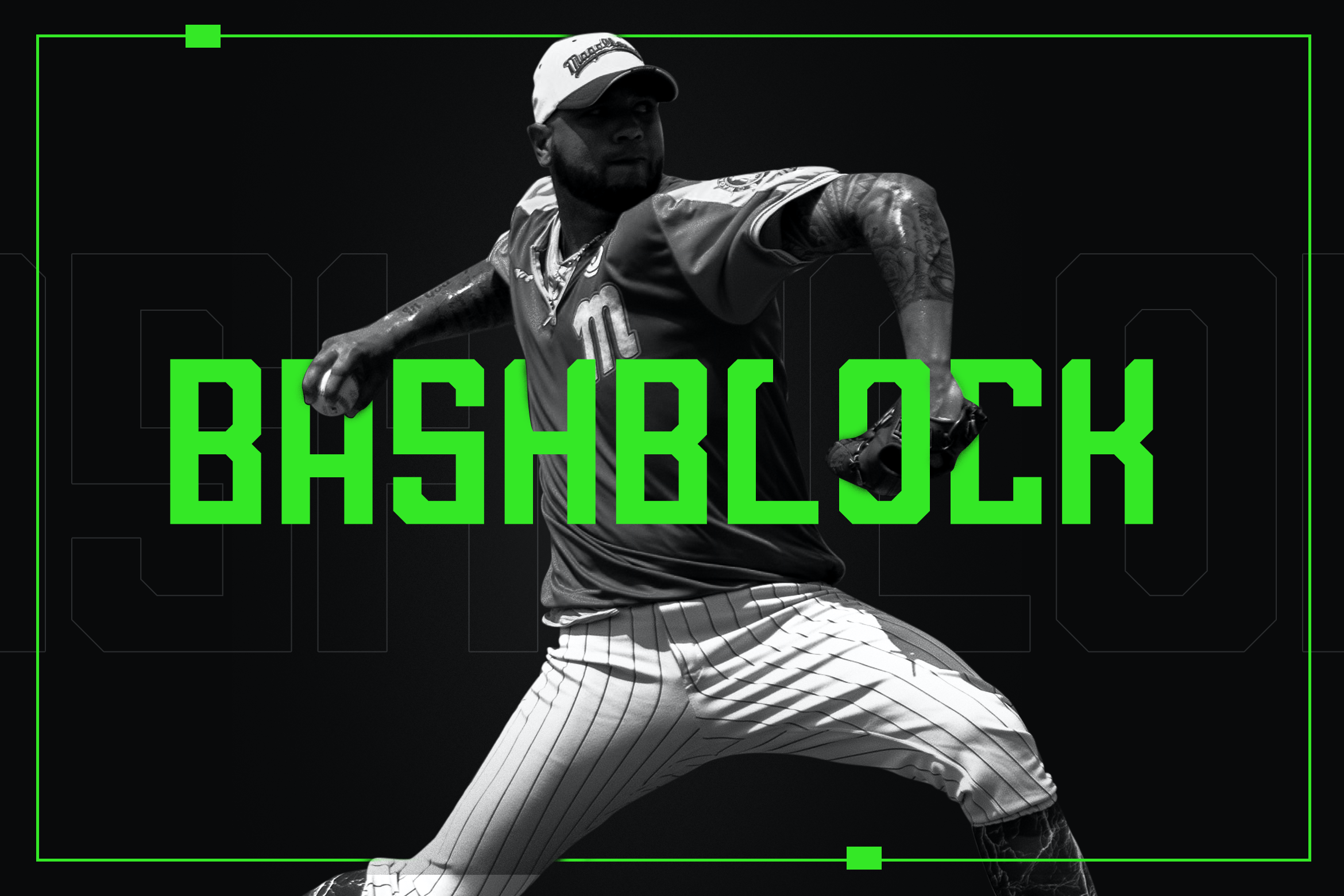
BashBlock Display Font
BashBlock Display font, is our new item that suitable for your team logo, or community logo.
Great for Logo, Sticker, Jersey, Invitation Card, Brochure, etc.